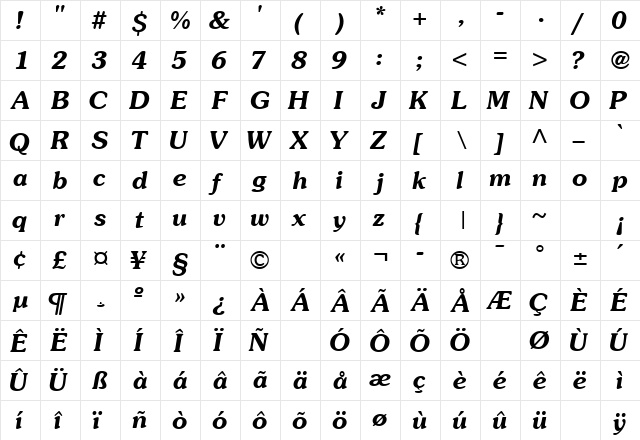
SouvenirBlackSSK Bold Italic Font Preview
Design Context for SouvenirBlackSSK Typeface
SouvenirBlackSSK is a composed and adaptable typeface that performs quietly and consistently across a wide range of design contexts. The dynamic lean of this cut emphasises speed and emphasis in any layout. The heavy weight commands attention and anchors typographic hierarchies.